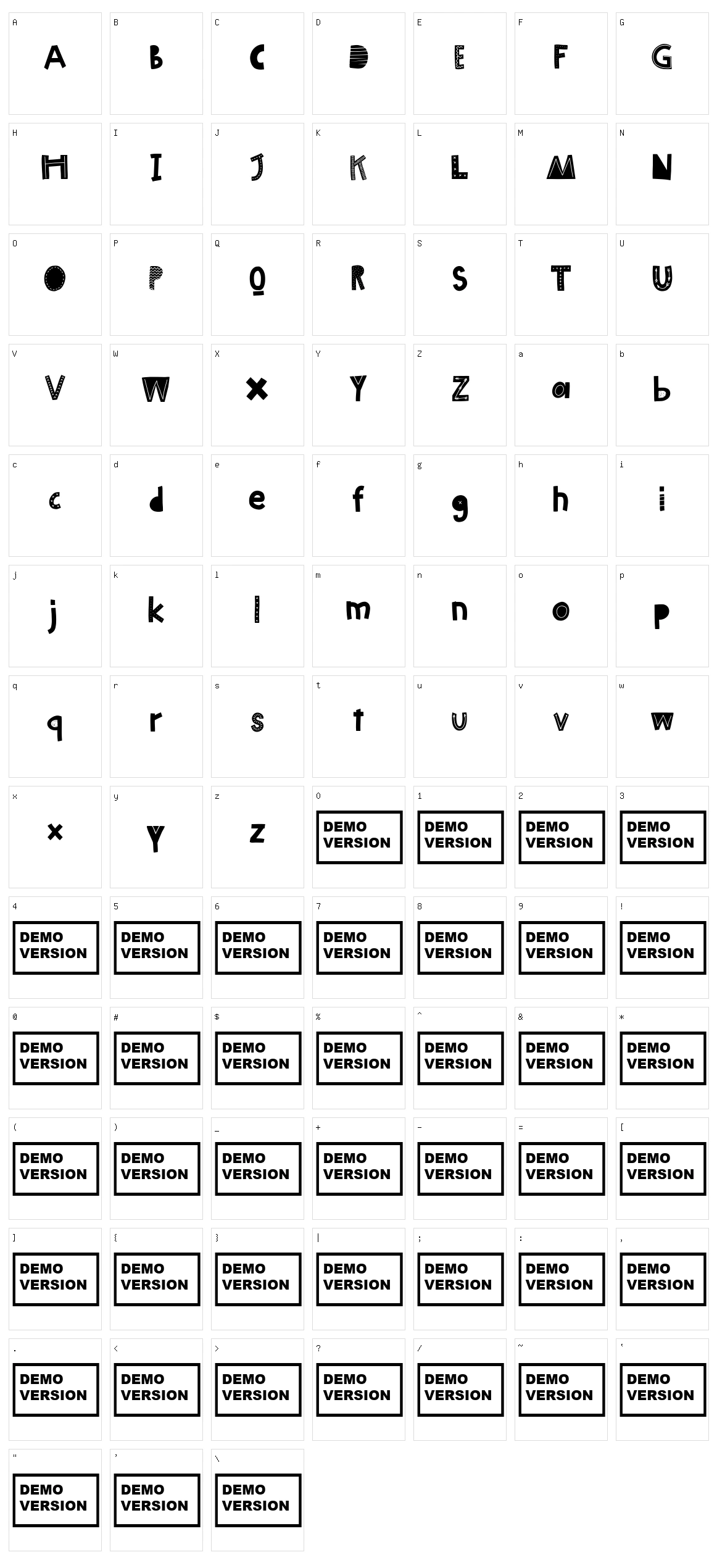
The free font Scandilover is carefully designed by Katsia Jazwinska, showcasing a thoughtful balance of creativity and usability and falls under the Decorative font style. When you download the ZIP file, it contains only 2376.75 KB of font files, making it lightweight and quick to download. Please review the license details below to understand permitted usage and distribution rights. If license information is not available, we recommend using this font for personal projects only or contacting the author directly for commercial usage permissions.